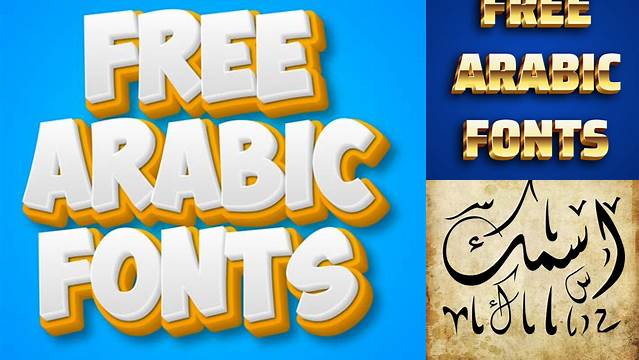
Free Arabic Font Generator Online: Create Stunning Text
Hey guys! Ever found yourself needing some amazing Arabic text but struggling to find the perfect font? Or maybe you're working on a design project and want to add that authentic Arabic flair? Well, you've come to the right place! Let's dive into the wonderful world of free Arabic font generators and how you can use them to create stunning text for all your projects.
Why Use an Arabic Font Generator?
First off, let's talk about why these online tools are such a game-changer. If you're not a professional designer or typographer, finding and using Arabic fonts can be a bit tricky. Traditional font software can be expensive and complex, and even finding the right font online can feel like searching for a needle in a haystack. That’s where an Arabic font generator steps in to save the day.
These generators are web-based applications that allow you to type in your text and then instantly see it rendered in a variety of beautiful Arabic fonts. No need to download anything, install software, or worry about licensing issues – it’s all done online, and often for free! This makes them super accessible for everyone, whether you're a student, a hobbyist, or a professional looking for a quick solution. The beauty of using an online Arabic font generator lies in its simplicity and convenience. You don't need to be a tech whiz or a design guru to get the hang of it. Most of these tools come with user-friendly interfaces that even your grandma could use. You simply type in your Arabic text, browse through the font options, and voilà , you have beautifully rendered text in a matter of seconds. Plus, many generators offer additional customization options, such as adjusting the text size, color, and adding effects like shadows or outlines. This gives you even more control over the final look and feel of your text, allowing you to tailor it perfectly to your needs. Another major advantage is the cost – or rather, the lack of it. Many Arabic font generators are completely free to use, which is a huge win if you're on a tight budget or just don't want to shell out money for expensive font software. This makes them an ideal option for students, small businesses, or anyone who needs to create Arabic text without breaking the bank. And let's not forget about the sheer variety of fonts available. Online generators often boast a wide selection of Arabic fonts, ranging from traditional calligraphy styles to modern, geometric designs. This means you can experiment with different looks and find the perfect font to match your project's aesthetic, whether it's a sleek website, a vibrant social media post, or a formal invitation. So, whether you're designing a poster, creating a logo, or simply want to add some flair to your social media posts, an Arabic font generator is your secret weapon for making your text look absolutely stunning. It's fast, easy, affordable, and gives you access to a world of beautiful Arabic typography at your fingertips.
Key Features to Look For
When you're choosing an Arabic font generator, there are a few key features you'll want to keep in mind to make sure you're getting the best tool for your needs. Not all generators are created equal, and knowing what to look for can save you time and frustration. First and foremost, you want a generator with a wide selection of fonts. The more options you have, the better chance you'll find the perfect font for your project. Look for generators that offer a variety of styles, from traditional Arabic calligraphy to modern, geometric fonts. This will allow you to experiment and find the font that best matches your desired aesthetic. Think about the kind of projects you’ll be working on. Do you need something formal and elegant for invitations, or something bold and modern for a website header? A good Arabic font generator should cater to a range of needs. Beyond the sheer number of fonts, consider the quality of the fonts as well. Are they well-designed and easy to read? Do they support all the necessary Arabic characters and diacritics? A poorly designed font can make your text look unprofessional, so it’s important to choose a generator that offers high-quality options. The user interface is another crucial factor. A generator with a clunky or confusing interface can be a nightmare to use, even if it has a great selection of fonts. Look for a generator with a clean, intuitive interface that makes it easy to type in your text, browse fonts, and customize your output. Ideally, you should be able to preview the fonts in real-time as you type, so you can see exactly how your text will look before you commit to a particular font. This can save you a lot of time and effort in the long run. Customization options are also important. While the basic function of a font generator is to render your text in different fonts, many generators offer additional features that allow you to further customize the look and feel of your text. Look for options like adjusting the text size, color, spacing, and adding effects like shadows or outlines. Some generators even allow you to upload your own images or backgrounds to create more elaborate designs. The more customization options you have, the more creative you can get with your text. Finally, consider the output options offered by the generator. Once you've created your text, how can you use it? Some generators allow you to download your text as an image file (e.g., PNG, JPG), while others provide the text as a vector graphic (e.g., SVG) that can be scaled without losing quality. If you need to use your text in a specific application or format, make sure the generator supports the output options you need. Some generators also offer options for embedding the text directly into a website or social media post, which can be a convenient time-saver. By considering these key features, you can choose an Arabic font generator that meets your needs and helps you create stunning text for all your projects. Remember to look for a wide selection of high-quality fonts, a user-friendly interface, ample customization options, and flexible output options. With the right tool, you'll be able to create beautiful Arabic typography with ease.
Top Free Arabic Font Generators Online
Alright, let's get to the good stuff! Here are some of the top free Arabic font generators you can find online. I've tried to include a variety of options, so you can find one that fits your specific needs and preferences. These tools can be a real lifesaver when you need to create beautiful Arabic text quickly and easily. Each generator has its own unique strengths, so let's dive in and explore what they have to offer. We’ll start with some web-based generators that you can use directly in your browser, without needing to download any software. These are super convenient for quick tasks and experimentation. Then, we’ll touch on some resources for finding free Arabic fonts that you can download and use in your favorite design programs.
First up is a generator that’s known for its simplicity and ease of use. It offers a decent selection of Arabic fonts, and the interface is very straightforward. You simply type in your text, choose a font, and download the result as an image. It's perfect for those who just need a quick and easy solution. Another popular option boasts a wider range of fonts and customization options. You can adjust the text size, color, and even add some basic effects like shadows. This generator is a great choice if you want a bit more control over the final output. It’s also worth checking out a generator that specializes in calligraphy fonts. If you’re looking for elegant, traditional Arabic scripts, this is the place to go. It features a beautiful collection of calligraphy fonts that are perfect for invitations, certificates, and other formal documents. For those who need to create text for social media, there’s a generator that offers pre-sized templates for various platforms. This makes it super easy to create eye-catching posts and stories with perfectly formatted Arabic text. It’s a real time-saver if you’re constantly creating content for social media. Remember, the best way to find the right generator for you is to try a few out and see what works best. Most of these tools are free, so you can experiment without any risk. Don't be afraid to play around with different fonts and customization options until you find the perfect combination for your project. And if you're looking for even more flexibility, you might want to explore some resources for downloading free Arabic fonts. There are many websites that offer a wide selection of fonts that you can install on your computer and use in your favorite design programs. This gives you more control over the fonts you use and allows you to integrate them seamlessly into your workflow. However, be sure to check the licensing terms of any fonts you download, as some may have restrictions on commercial use. With so many options available, there’s no excuse for boring Arabic text. Whether you choose to use an online generator or download fonts to your computer, you’ll be able to create stunning typography that adds a touch of elegance and authenticity to your projects. So go ahead and explore the world of free Arabic fonts, and let your creativity flow!
Tips for Using Arabic Fonts Effectively
Using Arabic fonts effectively is about more than just finding a pretty typeface. It's about understanding the nuances of the script, the cultural context, and how to best present the text for readability and visual appeal. Here are some tips to help you make the most of Arabic fonts in your designs. First, choose the right font for the context. Just like any language, Arabic has a rich variety of scripts and styles, each with its own personality and connotations. A formal document might call for a traditional calligraphy font, while a modern website might benefit from a cleaner, more geometric typeface. Think about the message you're trying to convey and choose a font that aligns with that message. A bold, decorative font might be perfect for a poster or headline, but it could be overwhelming in a paragraph of text. Similarly, a delicate, ornate font might be beautiful for an invitation, but it could be difficult to read on a website. Consider your target audience and the overall tone of your project when making your font selection. Pay attention to readability. Arabic script is inherently flowing and cursive, which can sometimes make it challenging to read, especially for those who are not familiar with the language. Choose fonts that are clear and well-spaced, and avoid using excessively decorative or condensed typefaces. The size of the font also plays a crucial role in readability. Make sure your text is large enough to be easily read, especially on screens. The contrast between the text and the background is another important factor. High contrast (e.g., black text on a white background) generally makes text easier to read, while low contrast (e.g., light gray text on a slightly darker gray background) can strain the eyes. Think about how your text will be displayed and adjust the size and contrast accordingly. Consider the layout and spacing. Arabic text is written from right to left, which can be a challenge for designers who are used to working with left-to-right languages. Make sure your layout accommodates the right-to-left flow of the text, and pay attention to the alignment and spacing of the letters and words. Proper spacing is essential for readability. Too little space between letters can make the text look cluttered, while too much space can make it look disjointed. Experiment with different spacing options until you find a balance that looks visually appealing and easy to read. Use diacritics appropriately. Diacritics are the small marks above and below Arabic letters that indicate vowels and other phonetic sounds. While they are not always necessary for reading Arabic, they can be important for clarity and pronunciation, especially in formal contexts or for learners of the language. If you are using diacritics, make sure they are clear and legible, and that they don't interfere with the overall readability of the text. Be mindful of cultural sensitivities. Arabic script is deeply intertwined with Islamic culture and heritage, so it's important to use it respectfully and appropriately. Avoid using Arabic fonts in contexts that could be considered offensive or disrespectful, and be aware of the cultural connotations of different styles and scripts. For example, using a traditional calligraphy font in a casual or irreverent context might be seen as inappropriate. Similarly, using a modern, geometric font in a religious context might not be the best choice. By keeping these tips in mind, you can use Arabic fonts effectively to create beautiful and impactful designs that resonate with your audience. Remember, choosing the right font is just the first step – it's how you use it that really matters.
So, there you have it! A comprehensive guide to using Arabic font generators online for free. Hopefully, you've learned a thing or two about why these tools are so valuable, what features to look for, and how to use Arabic fonts effectively. Whether you're a designer, a student, or just someone who loves the beauty of Arabic script, these generators can be a fantastic resource for creating stunning text for all your projects. Remember, the key is to experiment and find the tools and techniques that work best for you. Don't be afraid to try out different generators, fonts, and customization options until you achieve the look you're going for. And most importantly, have fun with it! Working with Arabic fonts can be a rewarding and creative experience, and the possibilities are endless. With the right tools and a little bit of practice, you can create truly beautiful and impactful designs that showcase the elegance and artistry of the Arabic language. The world of free Arabic fonts is vast and exciting, and there’s always something new to discover. So go ahead, explore the options, and let your creativity shine!